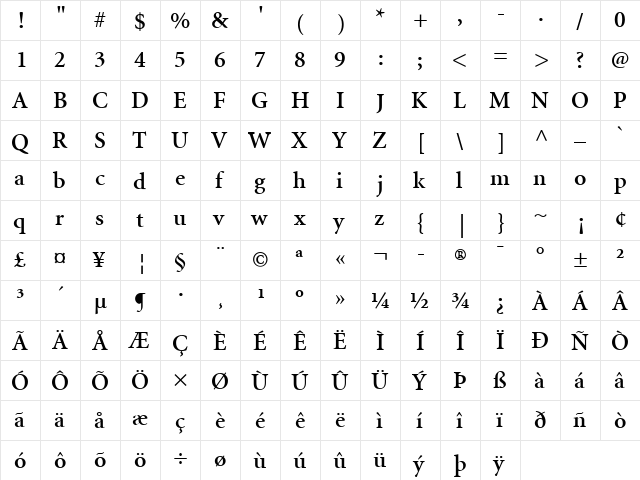
Minion LT Bold Font Preview
Minion LT Bold
Minion LT Bold Font Details
Design Context for Minion LT Typeface
Minion LT is a composed and adaptable typeface that performs quietly and consistently across a wide range of design contexts. Its bold stroke weight gives it real presence on the page.